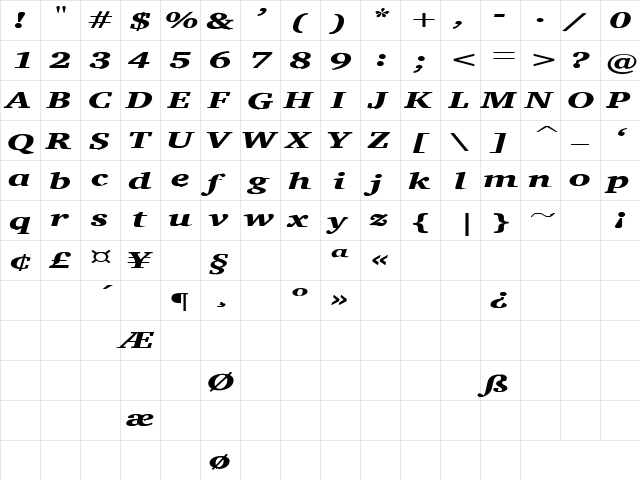
Last Child 3 Regular
Design Context for Last Child 3 Typeface
Last Child 3 trades formality for fun, with bouncy, characterful letterforms that bring warmth and energy to any project.
Font Pairing: Pairs well with a rounded or humanist sans for body copy, maintaining the friendly tone without relying on Last Child 3 to carry extended reading.
Pro Tip: Avoid using Last Child 3 for long passages of text — it works best for headlines, labels, and short calls to action.